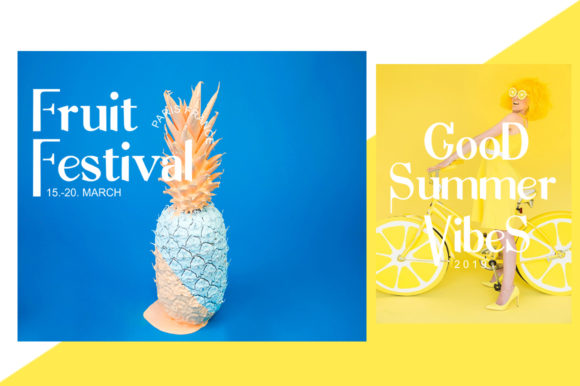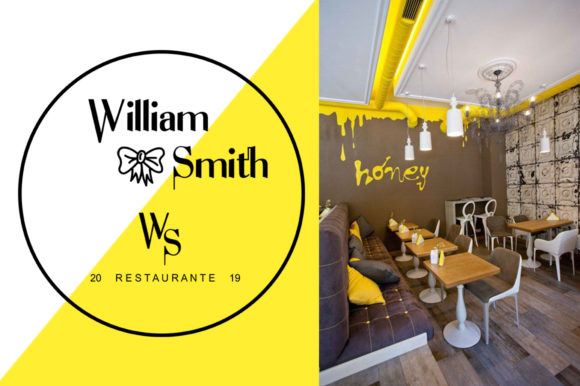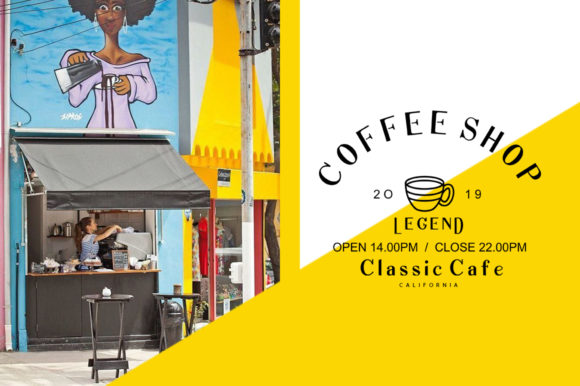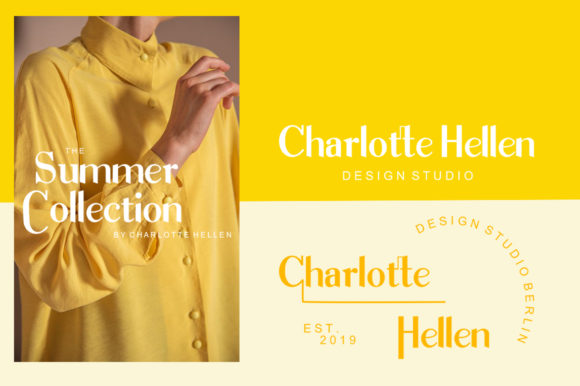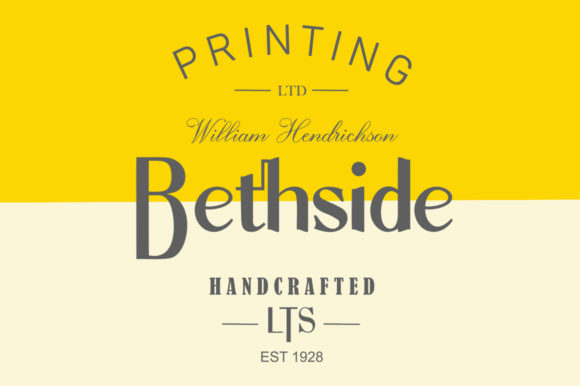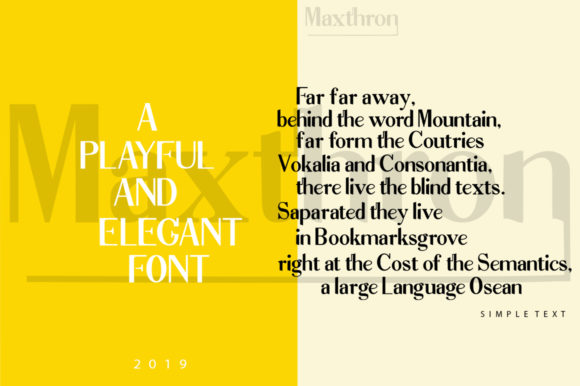
Introduction to Maxthron Family Font
Imagine you’re working on a creative project, and you need a font that perfectly captures the essence of your design. The struggle is real, but what if you had access to a versatile and high-quality font family that can elevate your work to the next level? That’s where the Maxthron Family Font comes in – a striking display family that’s designed to make your creative process a whole lot easier.
With its perfect balance of style and functionality, the Maxthron Family Font is a valuable resource for designers who crave high-quality design elements. From free download to seamless integration, this font family has got you covered. Whether you’re working on a branding project or a digital campaign, the Maxthron Family Font is the perfect design resource to add a professional touch to your work.
Key Features of Maxthron Family Font
- Unique and elegant design, perfect for creative projects and designs requiring a high-quality font.
- Comes with a transparent background, allowing for seamless integration with any design or image.
- Features a high-resolution design, suitable for printing and digital use at resolutions up to 300 DPI.
- Includes a comprehensive character set, covering a wide range of languages and characters.
- Designed to be highly legible, making it an excellent choice for body text and headings in various creative projects.
Honest Review: Maxthron Family Font
I recently stumbled upon the Maxthron Family Font, and I must say it’s been a game-changer for my creative projects. As a designer, I’m always on the lookout for high-quality design resources that can elevate my work, and this font definitely fits the bill.
One of the things that stood out to me about the Maxthron Family Font was its versatility. It comes with a range of styles and weights, making it perfect for anything from bold headlines to subtle body text. ✨ I also appreciated the transparent background option, which made it easy to customize the font to fit my design needs.
Here are some of the key features that I love about the Maxthron Family Font:
- High-quality design with crisp, clear lines
- Range of styles and weights to suit any design project
- Transparent background option for easy customization
My only complaint is that the font can be a bit overwhelming at times, especially when used in large quantities. ⚠️ It’s definitely a font that should be used in moderation to avoid visual fatigue.
Overall, I’m really impressed with the Maxthron Family Font. It’s a high-quality design resource that’s perfect for any creative project. Whether you’re a seasoned designer or just starting out, I highly recommend giving it a try!
The Maxthron Family Font is a high-quality design resource available for free download. It’s perfect for adding a touch of elegance to your creative projects. With its transparent background, you can easily layer it over any image or design element.
To get the most out of the Maxthron Family Font, try experimenting with different font sizes, colors, and combinations. You can also use it to create custom headings and titles for your designs.
The Maxthron Family Font is perfect for a wide range of creative projects, including wedding invitations, business cards, and social media graphics. It’s also great for creating high-quality typography for blog posts and articles.
Compared to Maxthron Family Font, Great Vibes Font has a more refined and polished appearance, making it suitable for high-end design projects.